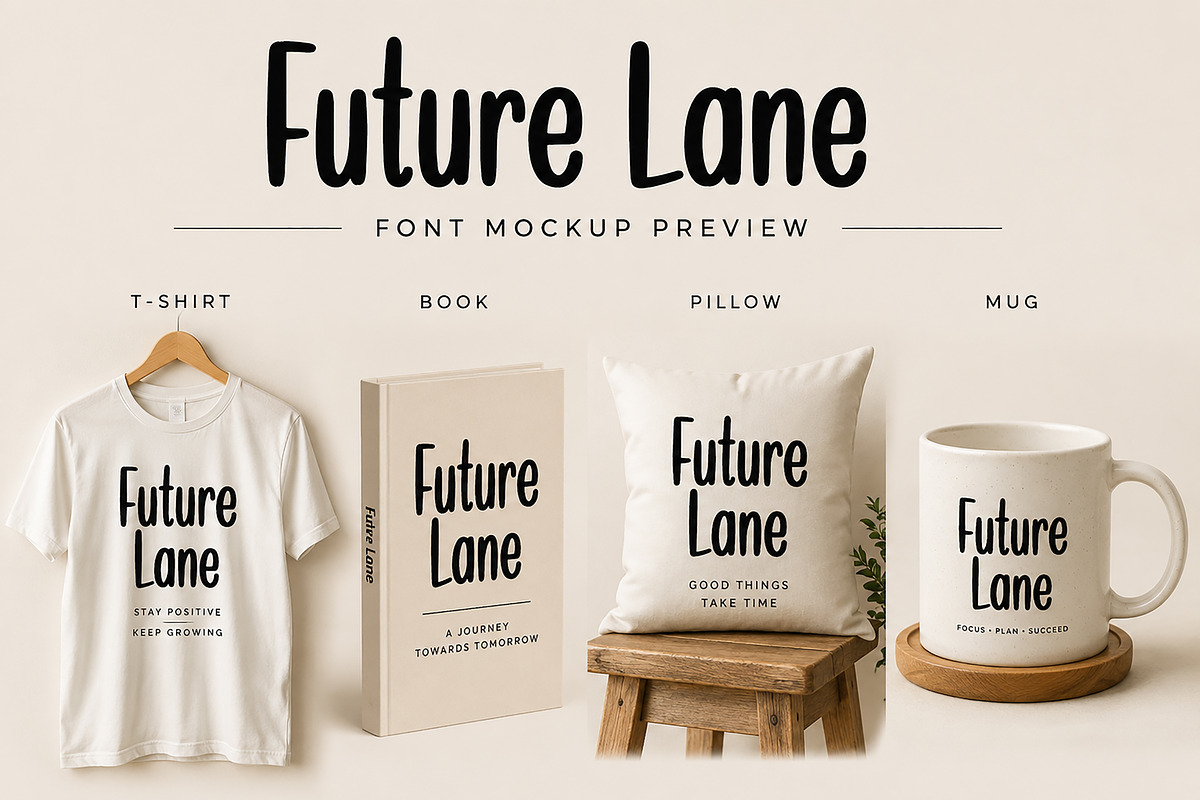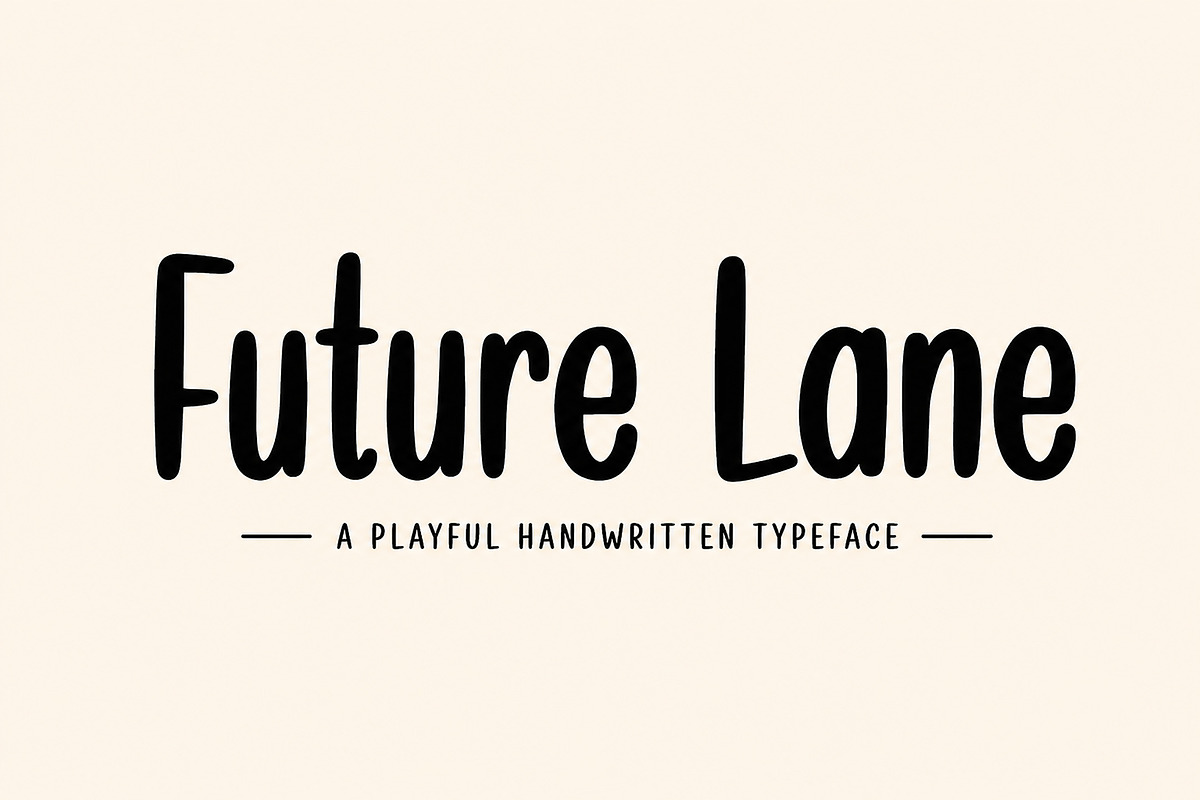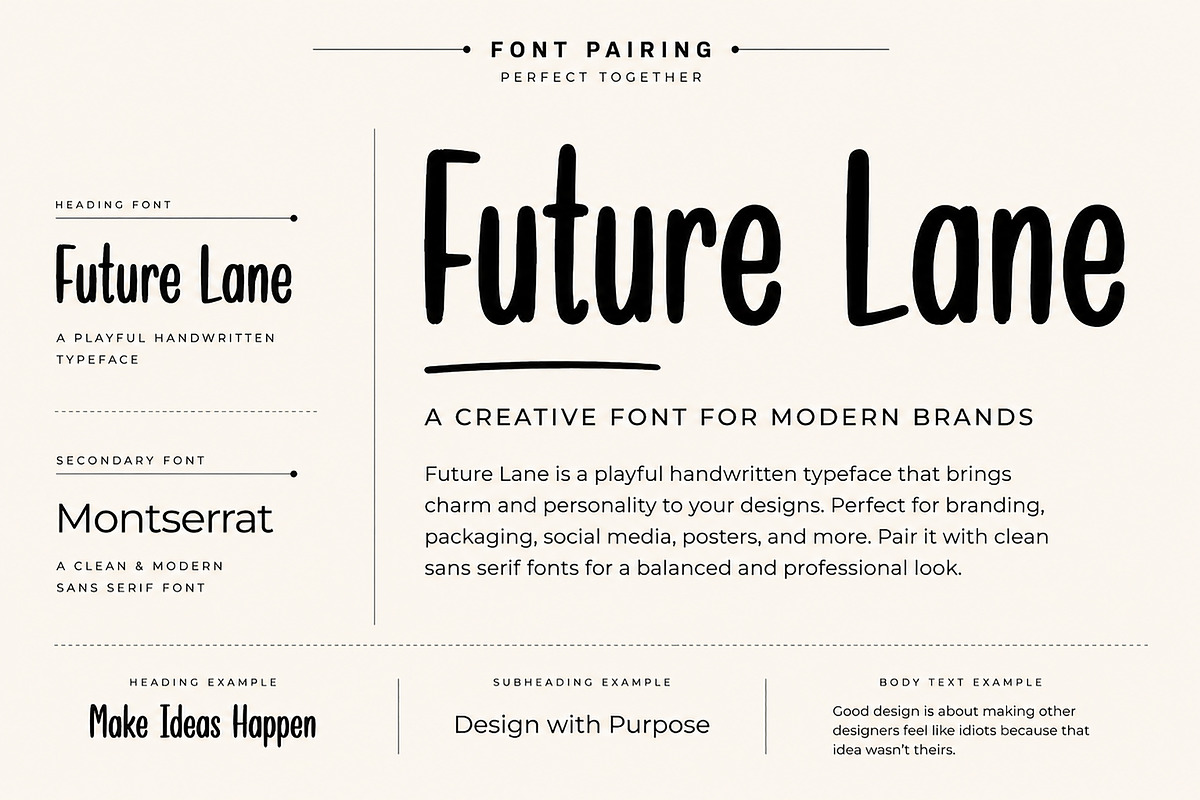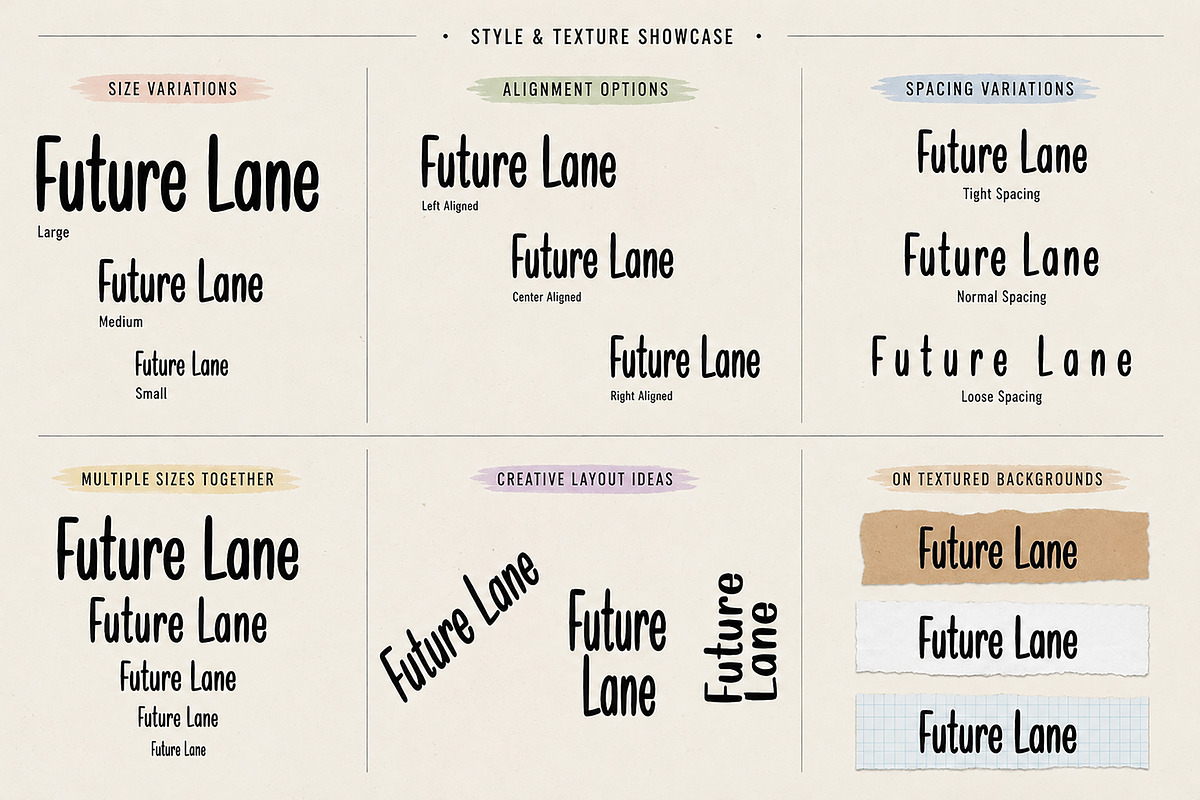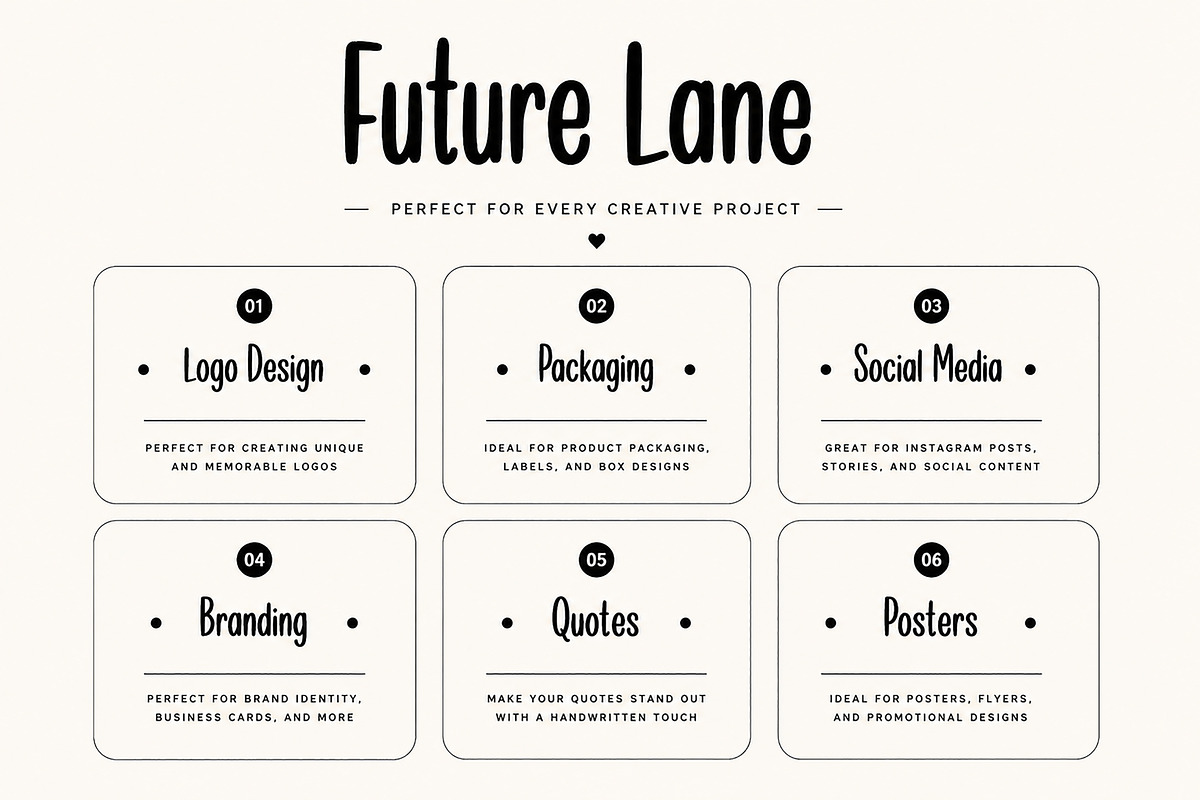
Future Lane
Future Lane is a playful handwritten typeface designed to bring warmth, charm, and personality into your creative projects. With its bold strokes, organic curves, and natural handwritten flow, this font is perfect for creating eye-catching designs with a modern and friendly touch.
Whether you're designing logos, branding materials, product packaging, social media graphics, posters, quotes, book covers, t-shirts, mugs, or stationery, Future Lane adds a unique handcrafted feel that stands out beautifully.
Its clean yet expressive style makes it versatile for both casual and professional projects, pairing effortlessly with minimalist sans serif fonts for balanced typography.
Branding Projects
Social Media Content
Quotes & Invitations
Posters & Flyers
T-Shirt Designs
Mug & Pillow Prints
Handmade Product Labels
Future Lane is crafted to give your designs a natural, authentic, and creative handwritten look.
A playful handwritten typeface with bold organic strokes, perfect for branding, packaging, social media, posters, and merchandise.